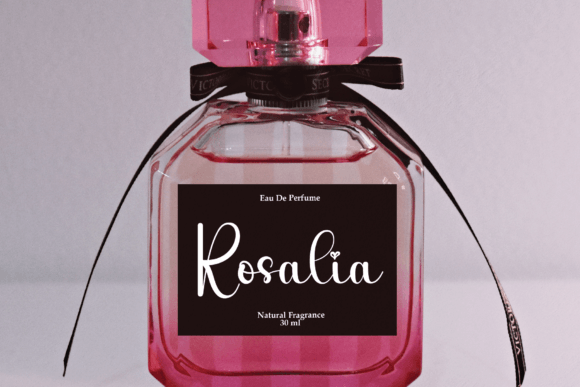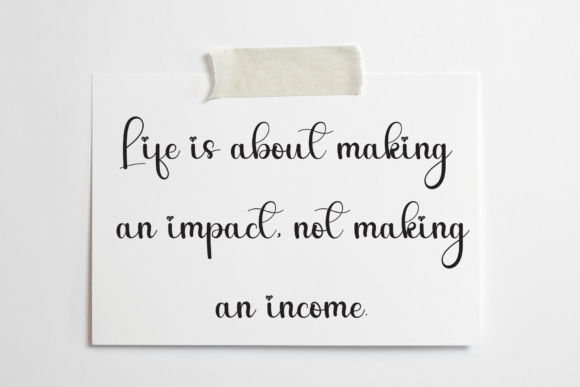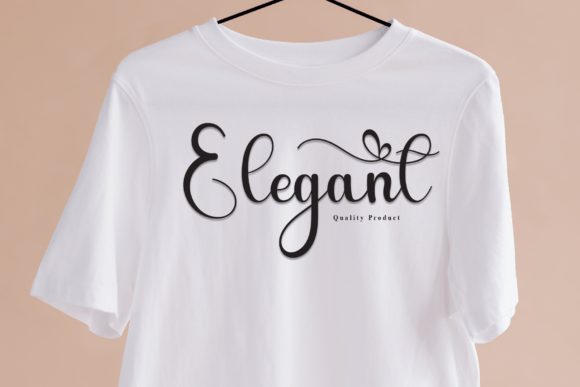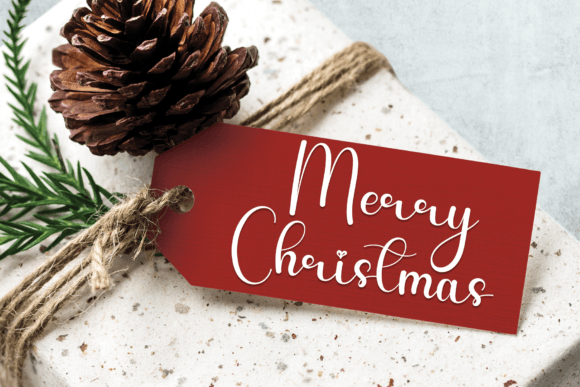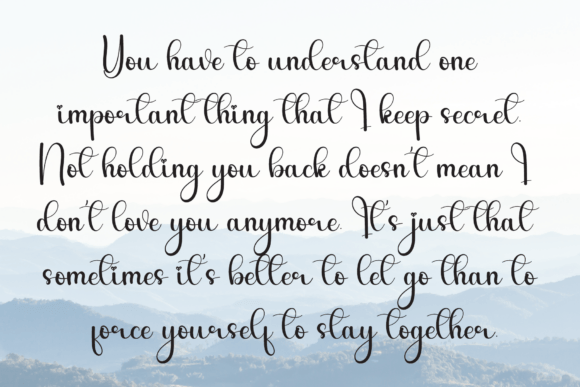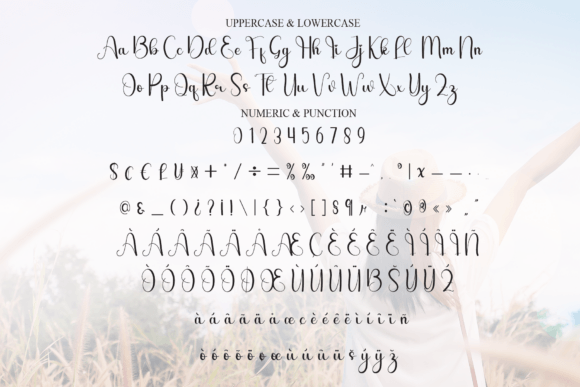
The Blissful Font: Elevate Your Designs with Elegance and Charm
I’ll never forget the time I was working on a wedding invitation project, and my client asked for a font that would make their special day feel like a fairytale. I scoured the internet, trying out font after font, but nothing seemed quite right. That was until I stumbled upon the Blissful font. Its flowing, graceful curves immediately caught my eye, and I knew I had found the perfect fit. In this article, I’ll share with you why I’m obsessed with the Blissful font and how you can use it to add a personal and sophisticated touch to your designs.
A Personal Review: What I Love About Blissful
The Blissful font has quickly become one of my go-to fonts for a variety of design projects. Here’s what I love about it:
• ✨ Elegant and charming: The Blissful font exudes sophistication and elegance, making it perfect for high-end designs.
• ✅ Versatile: This font works beautifully for invitations, logos, branding, and more.
• 💫 Unique character: The delicate strokes and flowing curves of the Blissful font give it a distinctive personality that sets it apart from other fonts.
While the Blissful font is incredibly versatile, there are a few things to keep in mind:
• ⚠️ Limited use for body text: Due to its elegant and cursive nature, the Blissful font is best used for headings, titles, and short paragraphs.
• 🤔 May not be suitable for very small sizes: The delicate strokes of the font may become lost at very small sizes, so it’s best used at larger sizes.
3. Experiment with OpenType features, such as ligatures and stylistic alternates, to add more personality to your text.
3. Explore the font’s glyphs and OpenType features, such as swashes and stylistic alternates, to add more creativity to your designs.
The Story Behind Blissful
The Blissful font was designed by a talented type designer who wanted to create a font that would evoke feelings of elegance and charm. Inspired by classic calligraphy and handwriting, the designer carefully crafted each letter to ensure that the font would be both beautiful and legible. The result is a font that is both sophisticated and approachable, making it perfect for a wide range of design projects.
What is the Blissful font best used for? The Blissful font is best used for headings, titles, and short paragraphs in designs that require a touch of elegance and charm.
Is the Blissful font suitable for body text? No, the Blissful font is not suitable for body text due to its elegant and cursive nature. It’s best used for headings and titles.